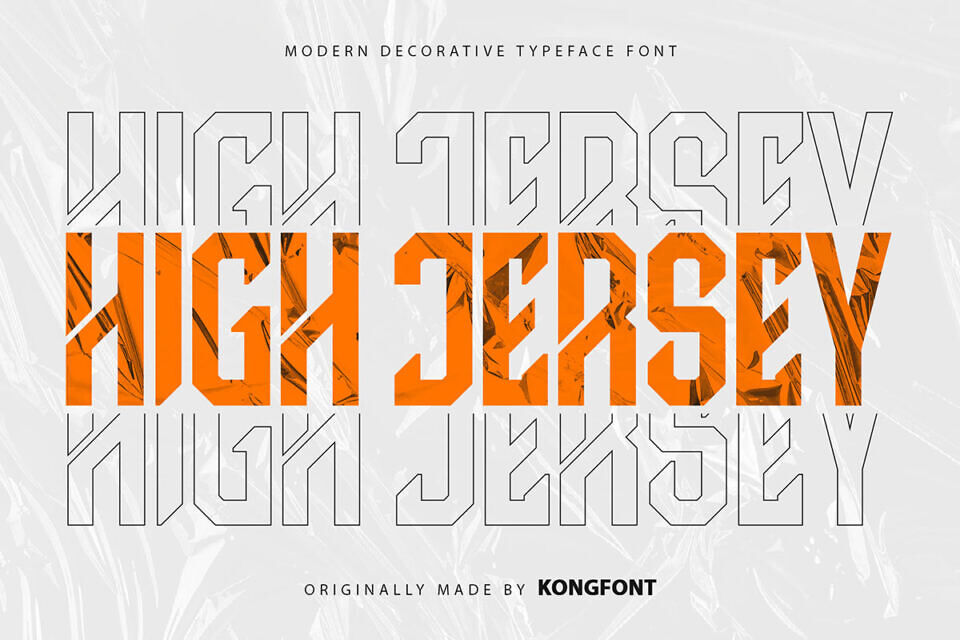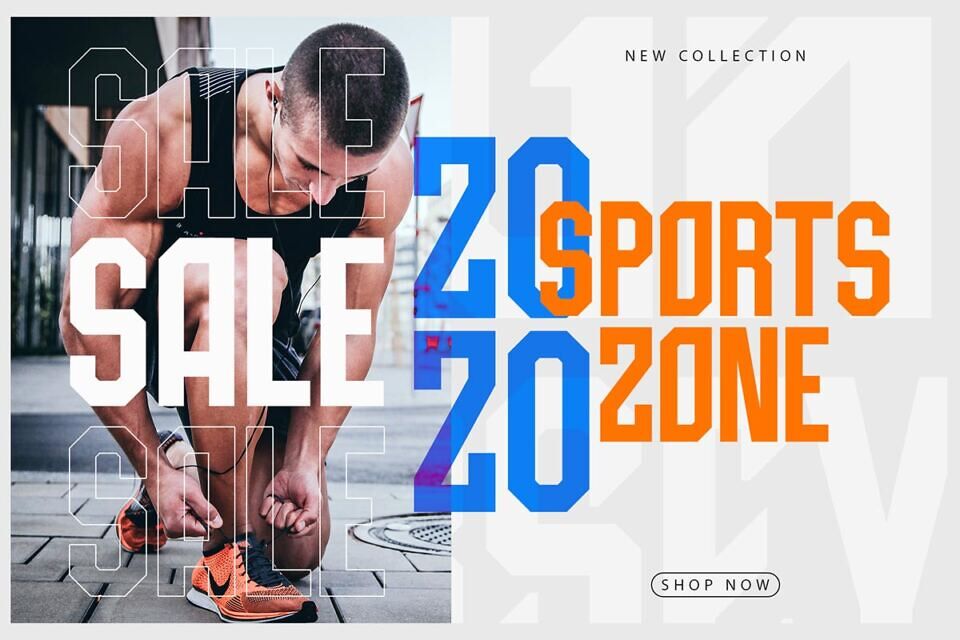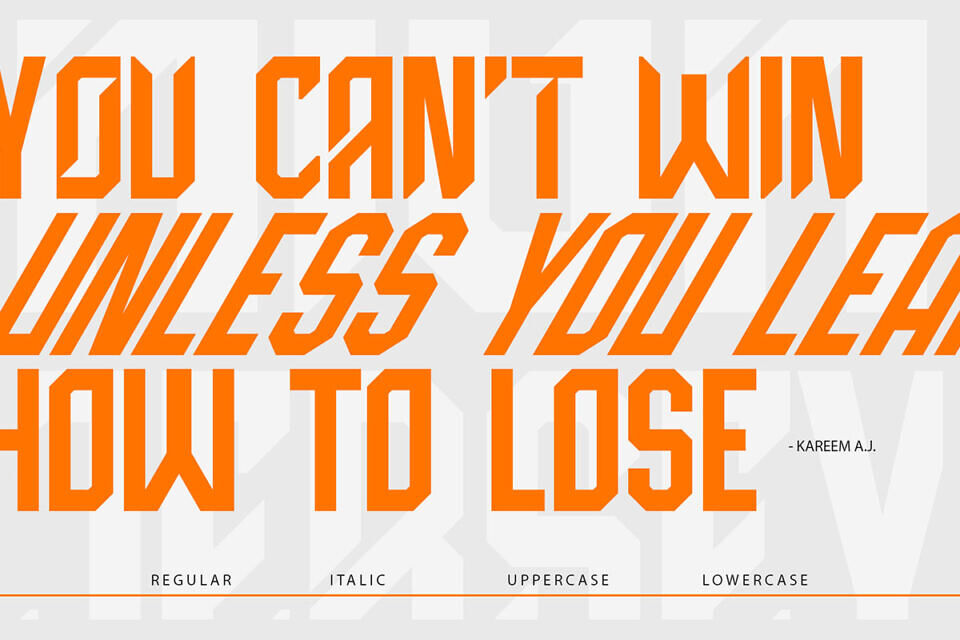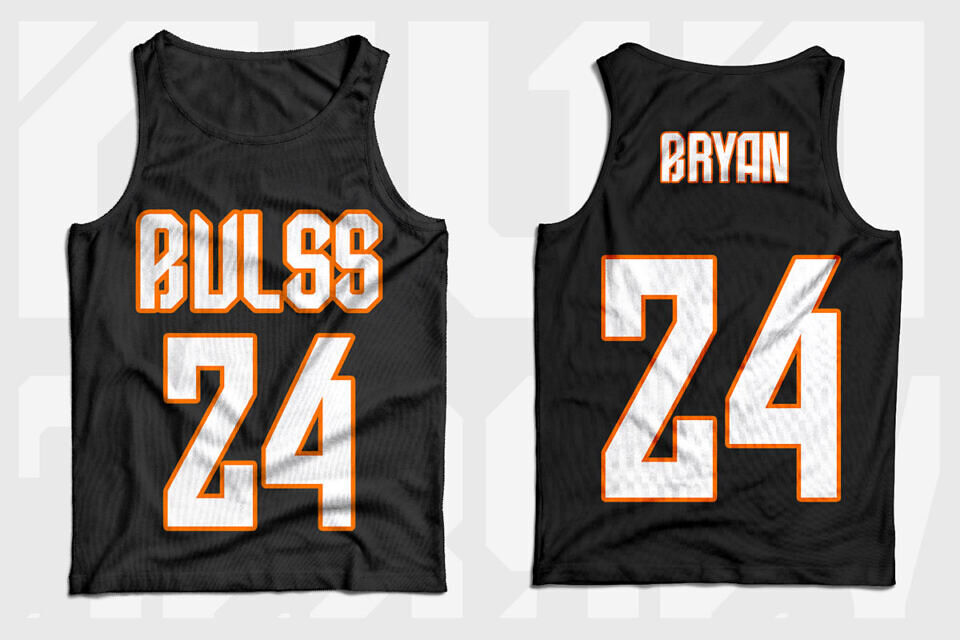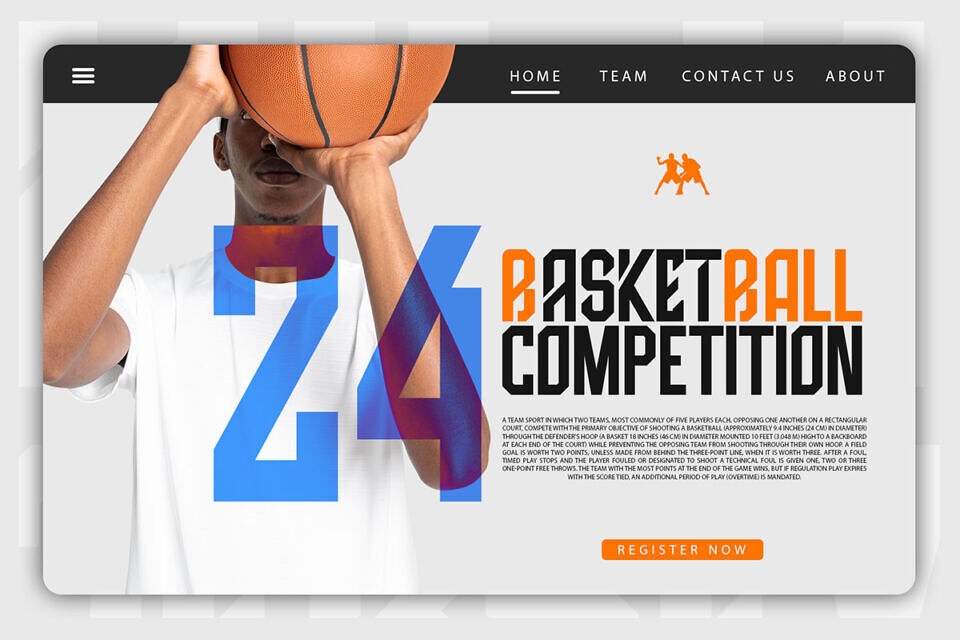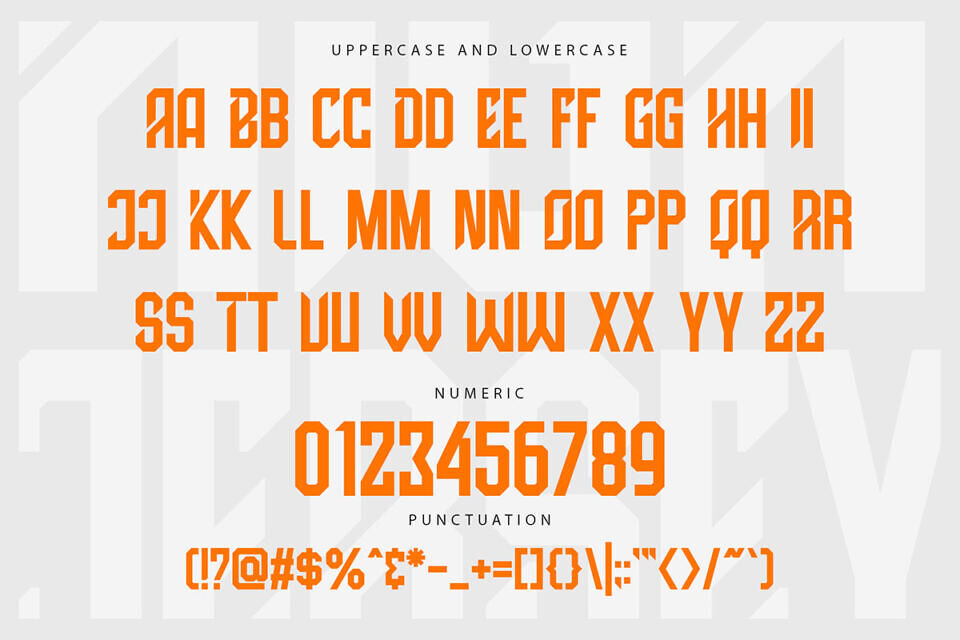
High Jersey Font
The High Jersey Font exudes a modern, sporty vibe. Its clean design makes it easily readable in various sizes. This versatile font is perfect for digital and print media, including social media, magazines, and posters.
It’s also ideal for sports-related products, such as logos, t-shirts, and hats. Additionally, it suits business signage, like stadium names, and can be used for event promotions, product packaging, and branding. Overall, High Jersey Font is a stylish and functional choice for various applications.